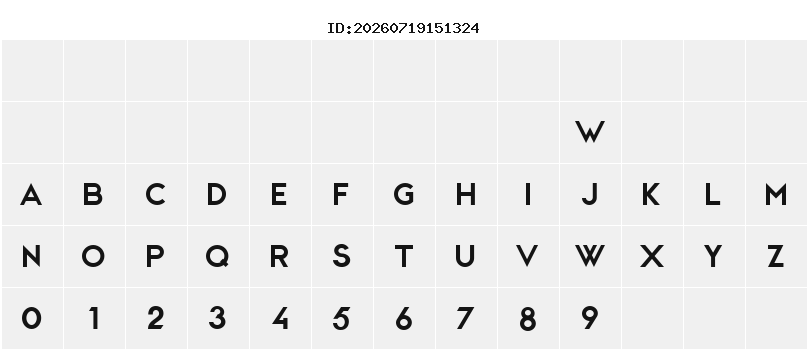
CWG Sans Preview
• Font Name: CWG Sans
• Full Font Name: CWG Sans
• Designer: Morten Talleivsen
About CWG Sans.ttf
CWG Sans.ttf is a modern, elegant sans-serif font designed for ultimate readability and visual harmony. Perfect for branding, headlines, web design, and print materials.